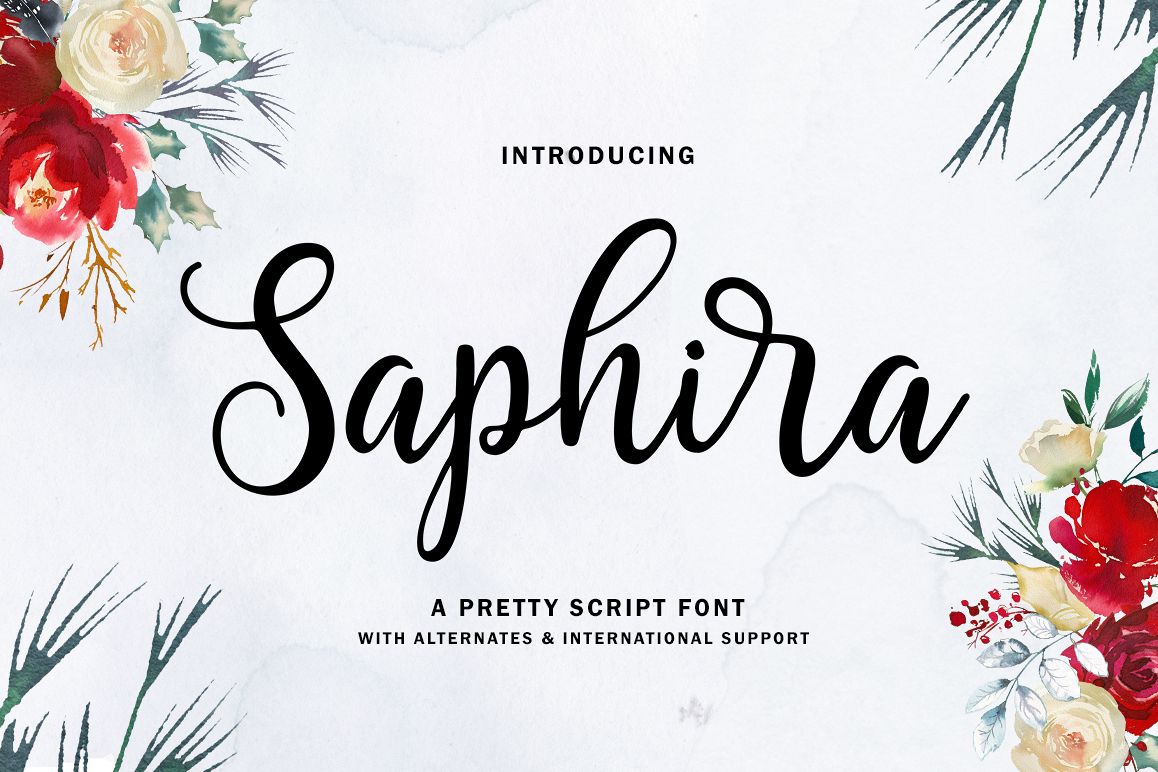
Saphira Script
Saphira Script (Slant Reguler)
Saphira Script is a modern pretty font, organic, dynamic and energetic sytle.Can used for various purposes. such as the title, signature, logo, correspondence, wedding invitations, letterhead, signage, labels, newsletters, posters, badges, etc.